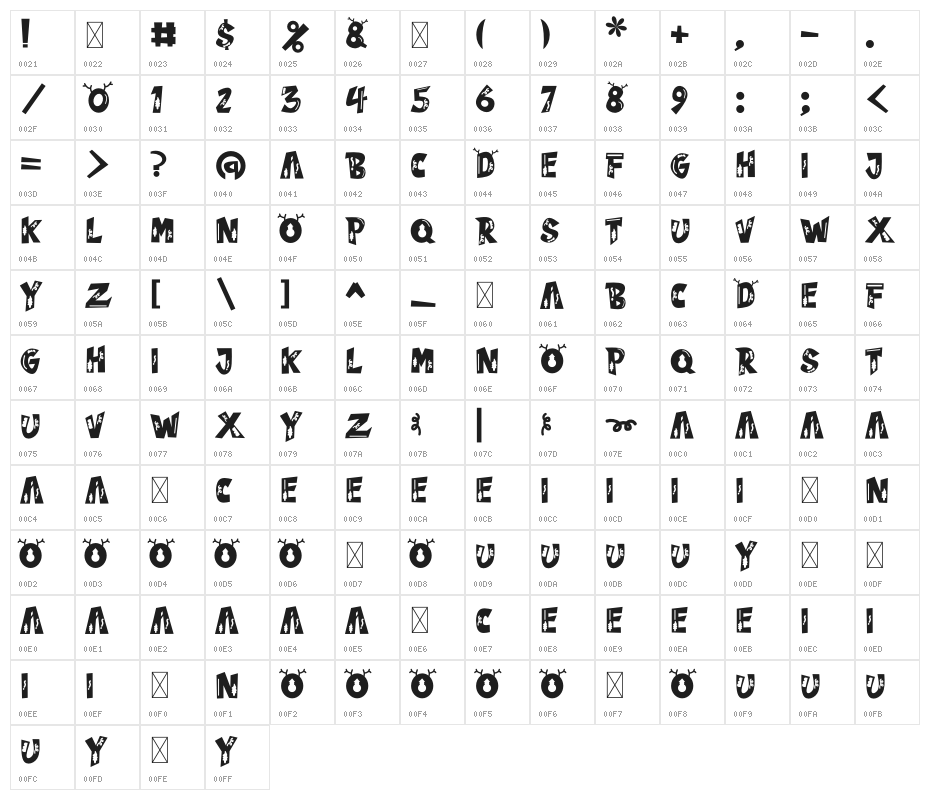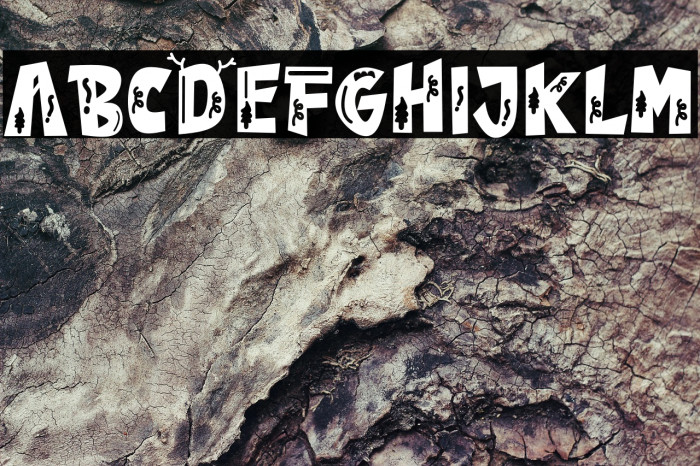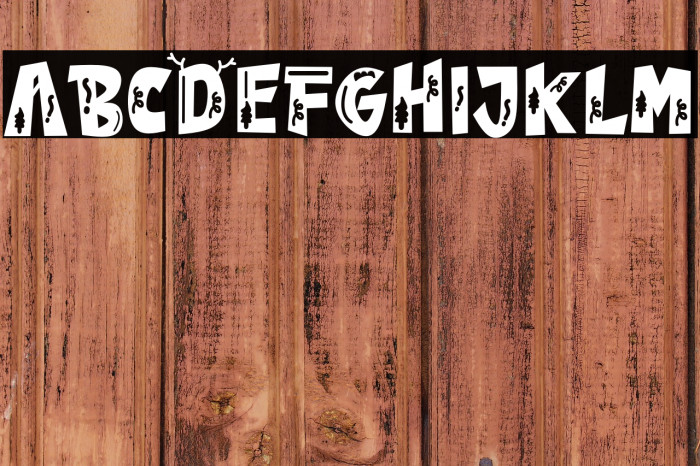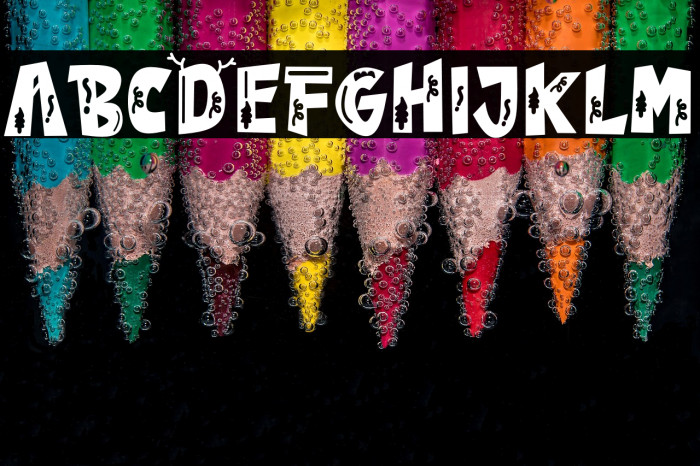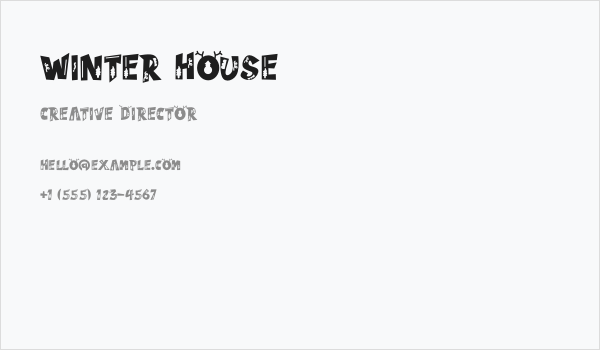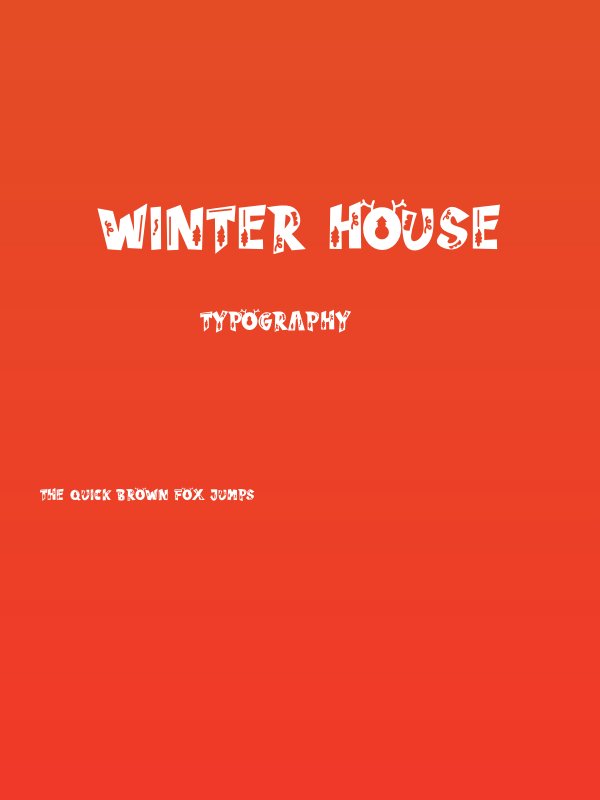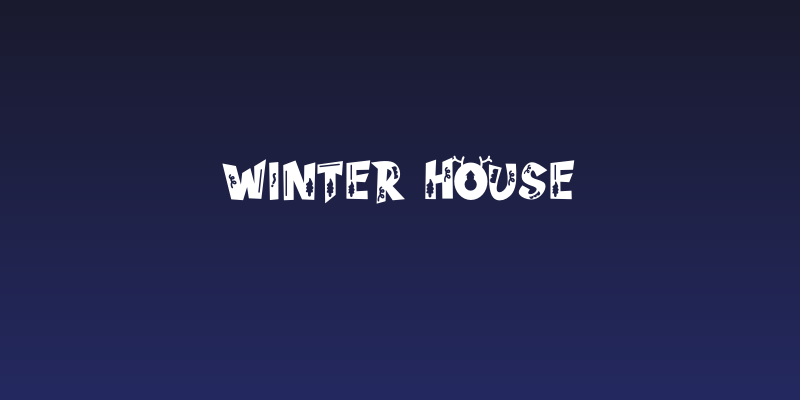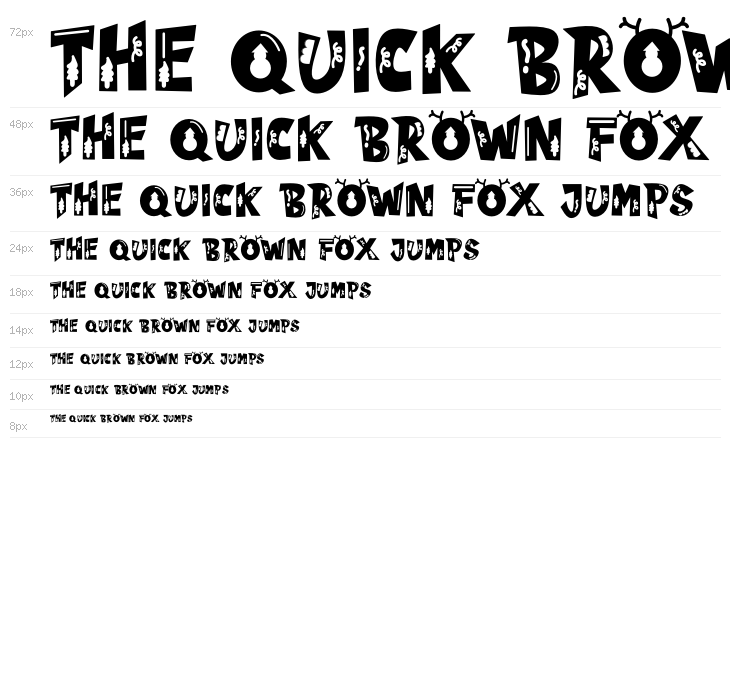
Winter House Font
This playful and whimsical font features bold, chunky letters with a winter-themed design. Each character is adorned with snowflakes, icicles, and antler-like decorations, giving it a festive and cheerful appearance. The uppercase and lowercase letters maintain a consistent style, with exaggerated curves and angles that add to the font's unique charm. The numbers and special characters are equally decorative, making this font ideal for holiday-themed projects. Its bold and eye-catching design ensures that it stands out in any context.
| Proposed Projects | Ideal for holiday cards, winter festival posters, children's book covers, and festive event invitations. |